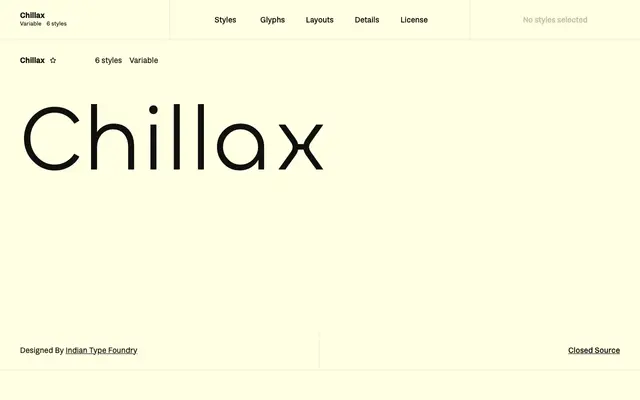
Chillax
A geometric sans-serif by Manushi Parikh whose lowercase letterforms derive directly from Herbert Bayer's 1926 Universal alphabet, with an added uppercase and Bauhaus-referencing OpenType alternates.
Designed for display and headline use, Chillax takes the constructivist geometry of the Bauhaus as its structural foundation, with lowercase forms modelled on Bayer's Universal alphabet and additional stylistic alternates that replicate the lettering from the Dessau Bauhaus building signage. Six static weights run from Extralight to Bold, supplemented by a variable font with a continuous weight axis, and OpenType features offer rounder alternate forms for a broad set of uppercase and lowercase characters. With 443 glyphs per font and support for over 135 Latin-script languages, it suits editorial, poster and brand work where a clean modernist sensibility is wanted.
A geometric sans-serif with explicit Bauhaus lineage, its lowercase drawn after Herbert Bayer's 1926 Universal alphabet, placing it squarely in the geometric/constructivist tradition.